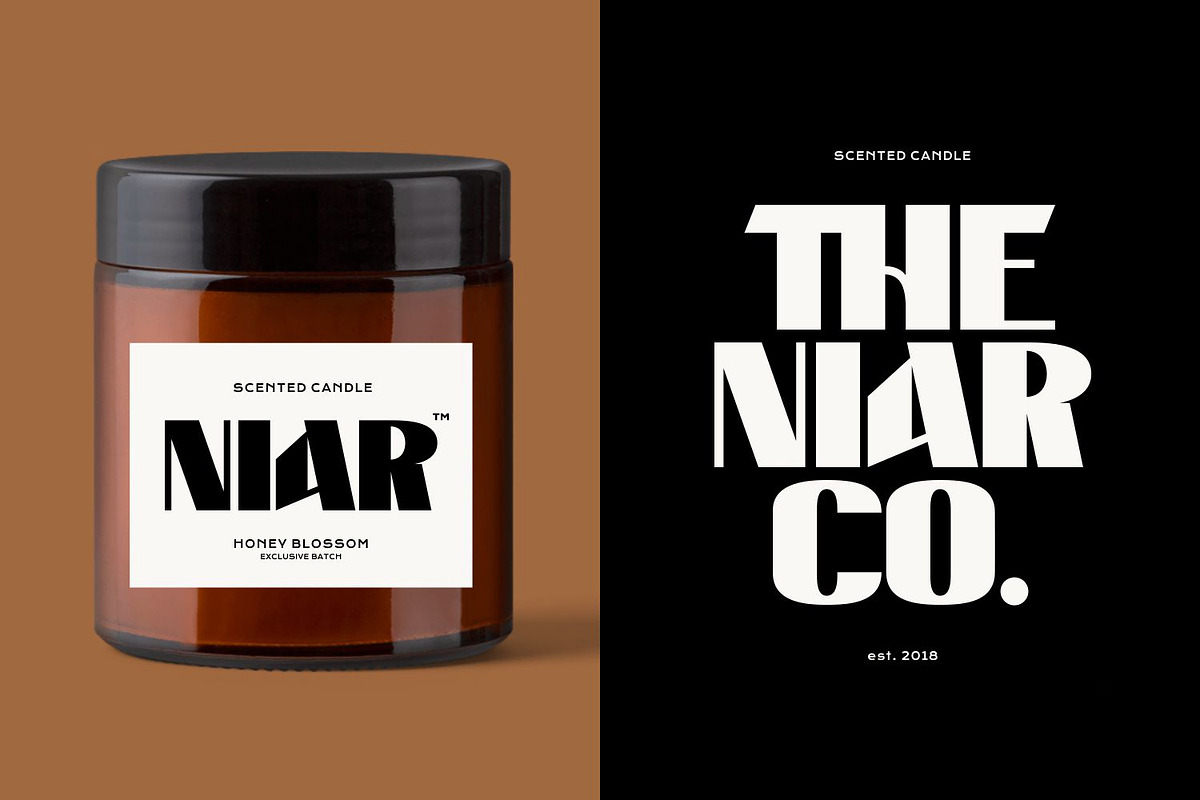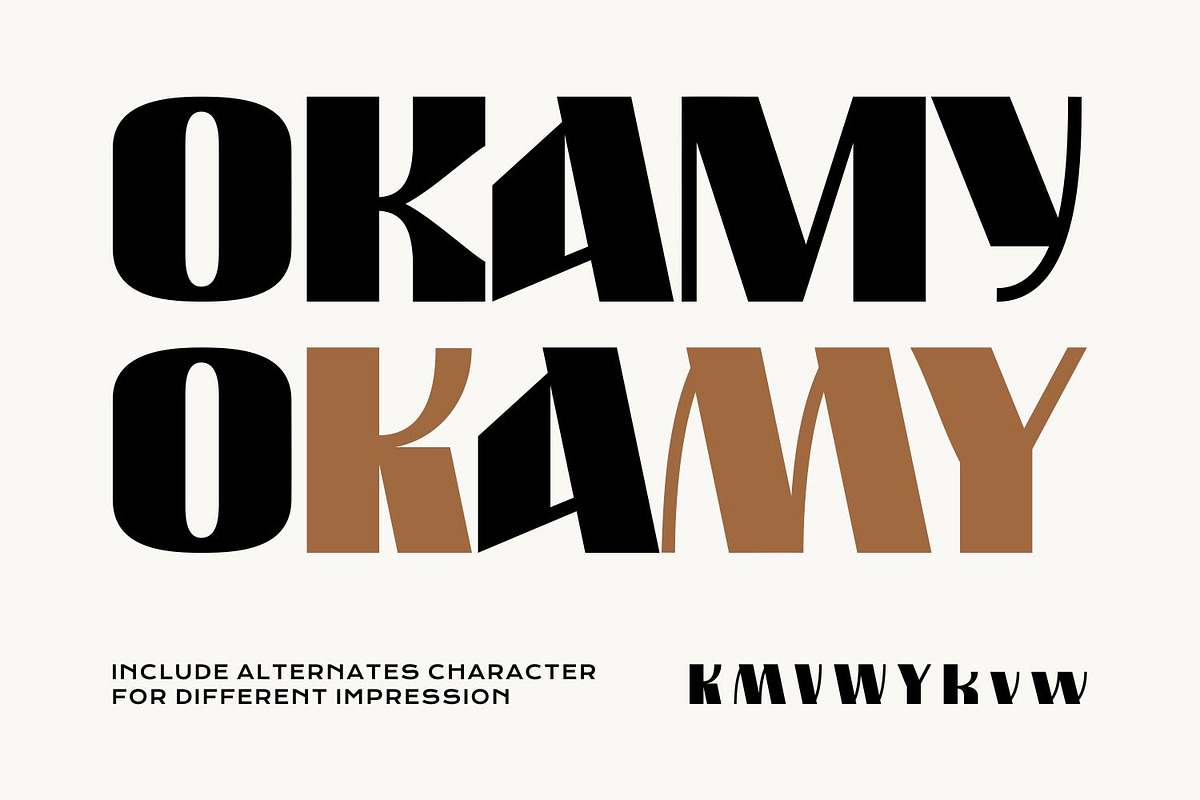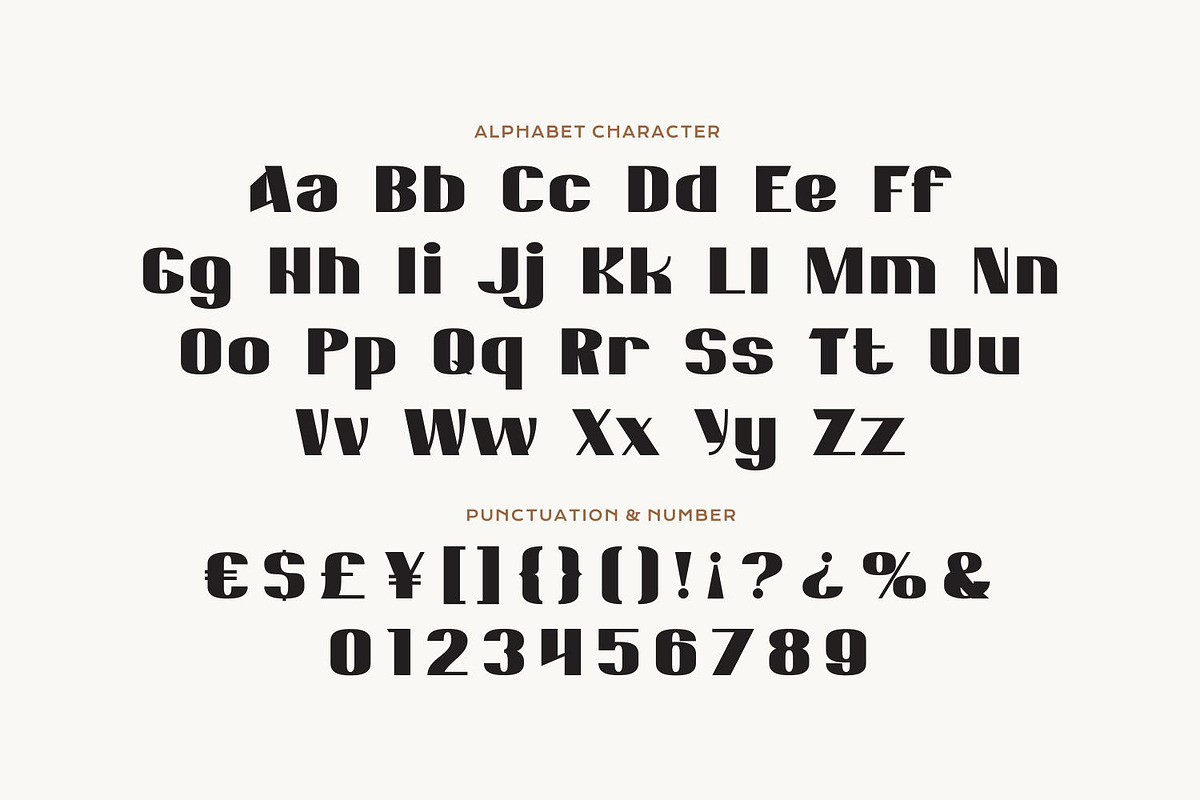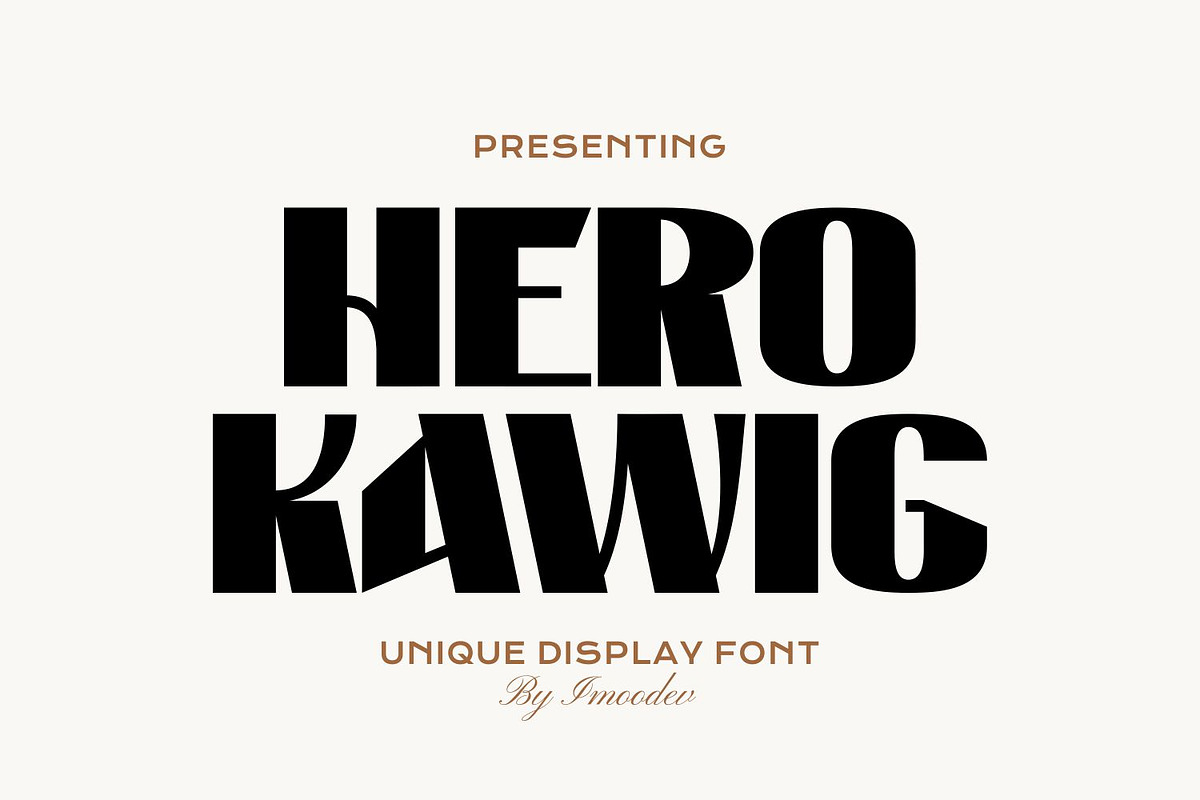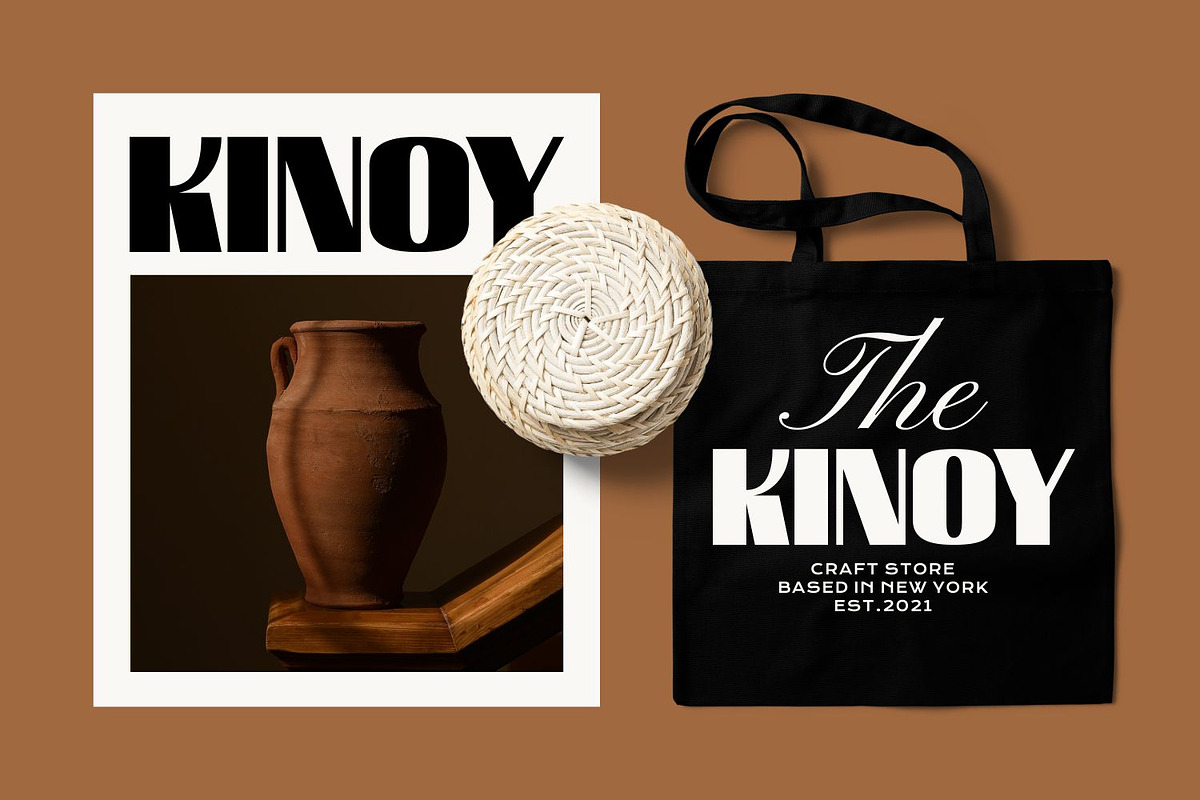
Hero Kawig - Chunky Display Font
Introducing Hero Kawig, a powerful and unique display font designed to make a bold statement. This modern sans serif is defined by its strong, condensed letterforms and striking character. With its clean lines and geometric foundation, Hero Kawig is perfect for creating impactful headlines, memorable logos, and sophisticated branding.
Hero Kawig is a hefty, chunky display font that blends modern minimalism with a retro swagger flair. Its slab-inspired letterforms feature carefully placed negative cuts and sharp terminals, creating a dynamic, kinetic rhythm that gives each character a distinctive stencil meets sculpture vibe.
What sets this font apart are its unique alternate characters, which feature dynamic diagonal cuts that add an edgy and contemporary flair to your designs. Whether you're working on high fashion branding, minimalist packaging, editorial layouts, signage, and editorial spreads, it's especially well suited to beauty product branding, boutique identities, craft goods labels, tote bag branding, Hero Kawig provides the versatility and strength to command attention.